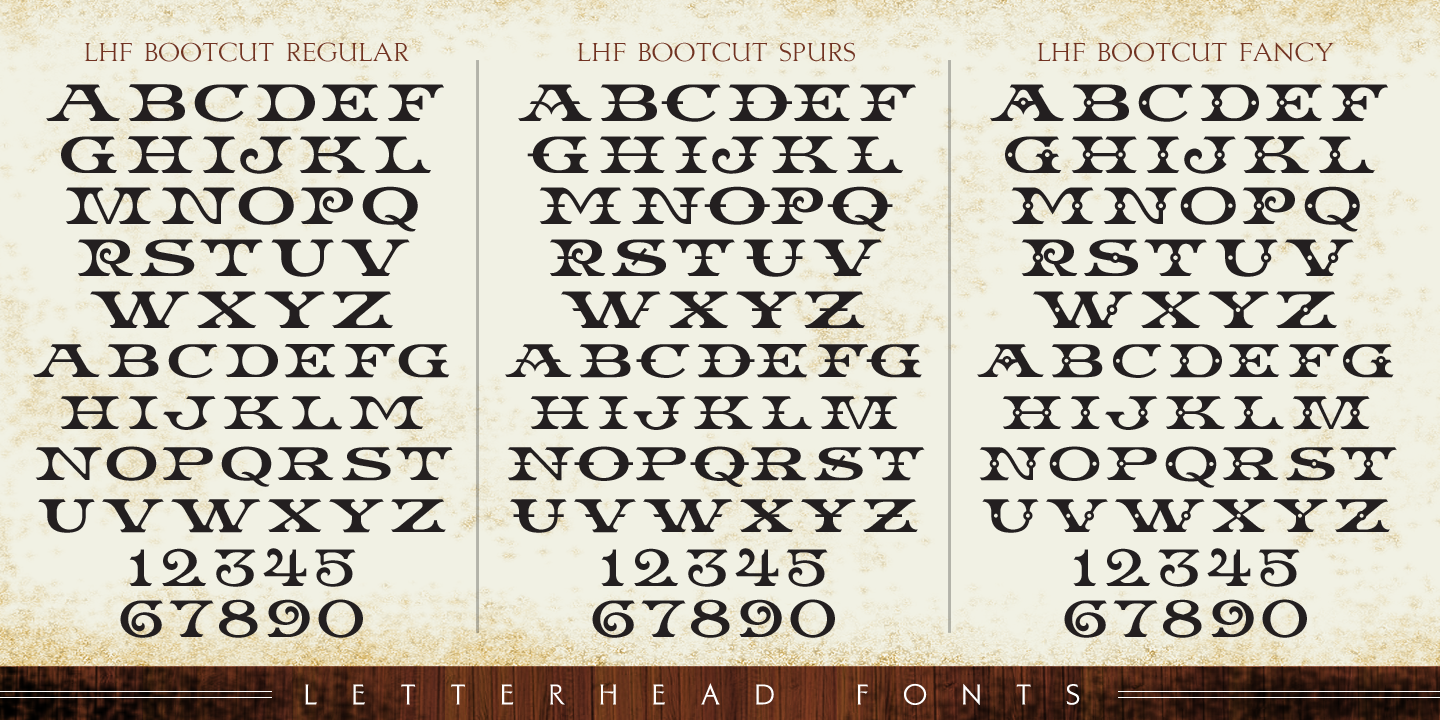
The LHF Bootcut Font is perfect for various design applications including western wear branding, cowboy boot advertising, ranch lifestyle marketing, country music festival graphics, rodeo event promotions, western fashion boutiques, farm equipment signage, and authentic frontier-themed designs. This rugged typeface works exceptionally well for western lifestyle brands and projects requiring authentic cowboy character with frontier appeal.
What makes LHF Bootcut Font exciting is its rugged and authentic character that instantly captures the spirit of the American West and the timeless appeal of cowboy culture with frontier toughness. The font features sturdy letterforms with western aesthetics and boot-inspired qualities that evoke feelings of adventure, freedom, and authentic frontier heritage. Its cowboy styling and bootcut appearance make it perfect for brands that want to embody western values and connect with audiences who appreciate authentic American frontier traditions and cowboy lifestyle.
The LHF Bootcut Font family includes multiple weights and styles, offering designers flexibility for diverse western applications. The family typically consists of regular, bold, condensed, and distressed variations, along with western-inspired decorative elements and frontier ornaments, providing comprehensive coverage for projects that need both authenticity and visual impact across different cowboy contexts.
Whether you're working on western fashion brands, ranch services, or frontier lifestyle campaigns, LHF Bootcut Font Free Download delivers the authentic quality and visual toughness that modern western designers demand. The font's bootcut-inspired design combined with its excellent readability makes it an essential tool for creating compelling visual communications that honor cowboy heritage and bring the adventurous spirit of the American frontier to life.